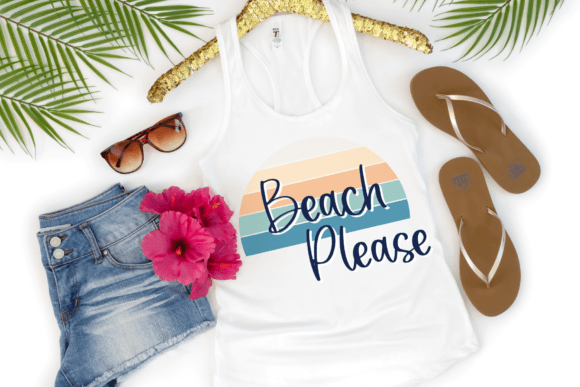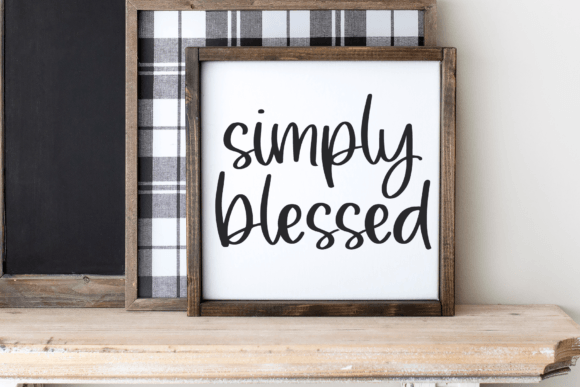
Shine a Light Font
Shine a Light is a cute handwritten font that is perfect for fun logos, greeting cards, t-shirt designs, stickers, social media, crafts, and much more. Add it to your creative projects and you will love the results!